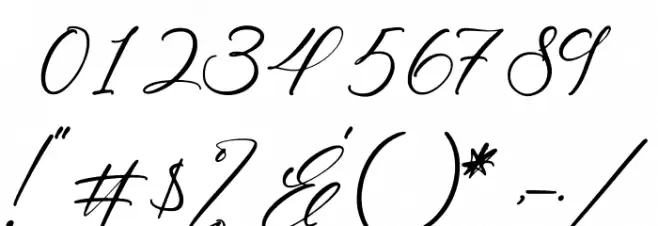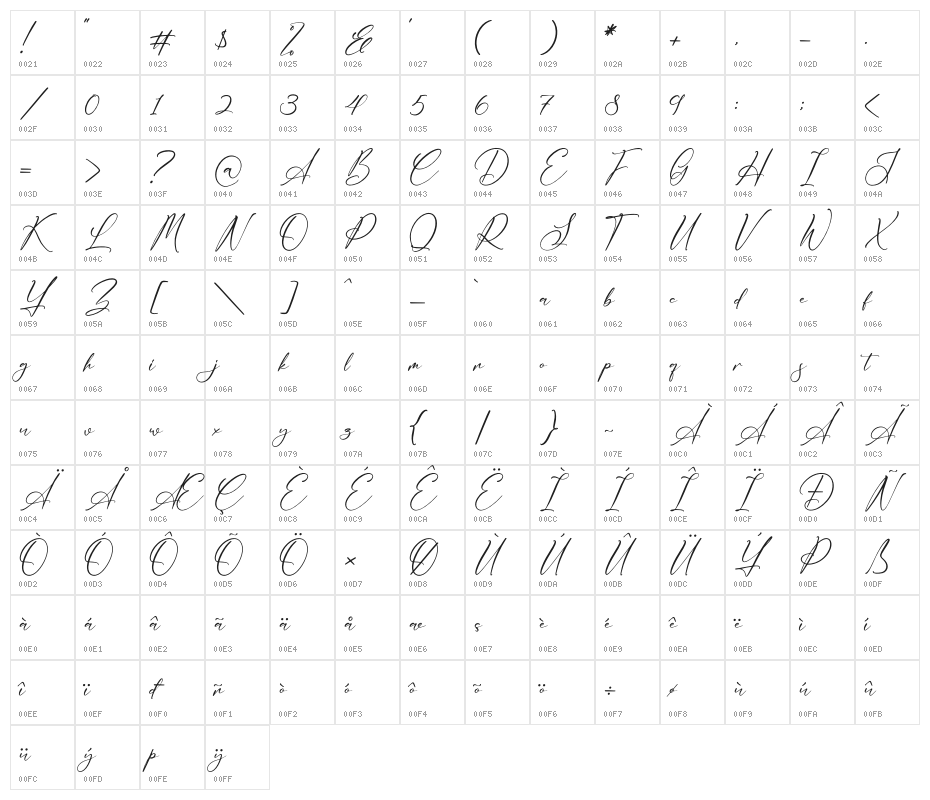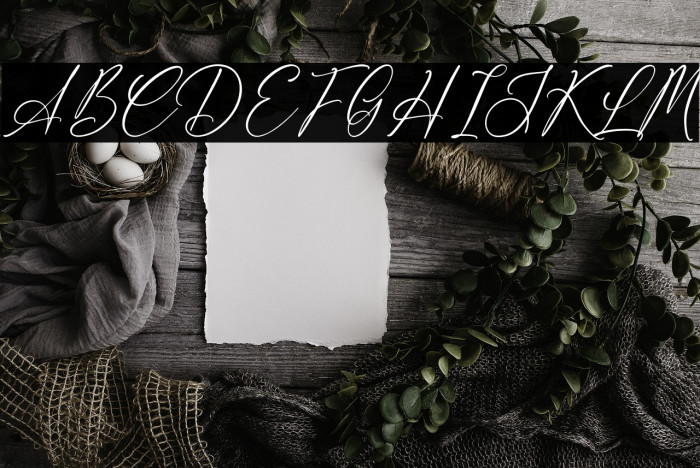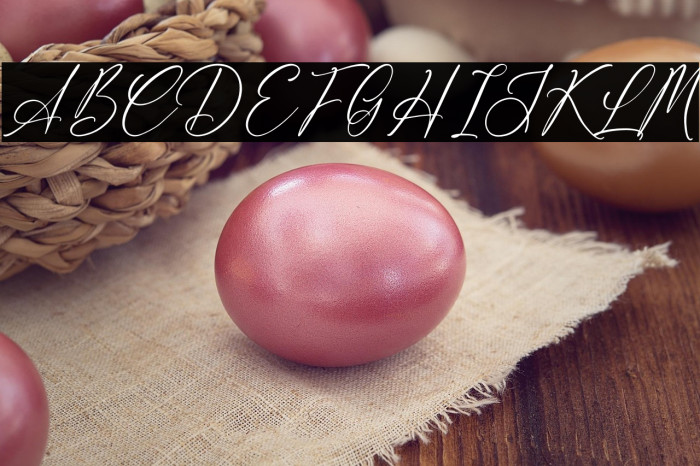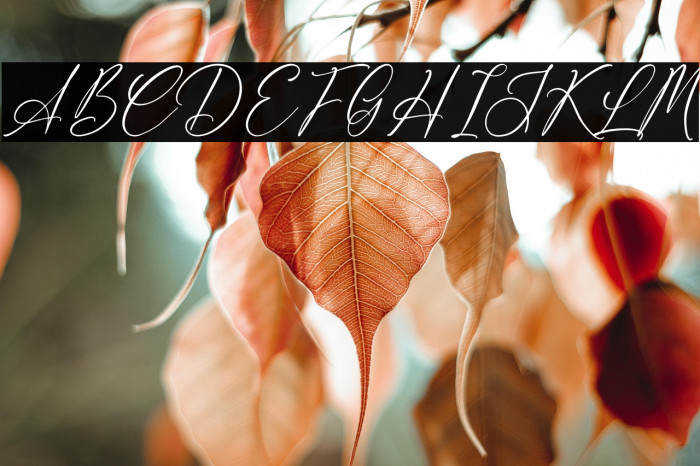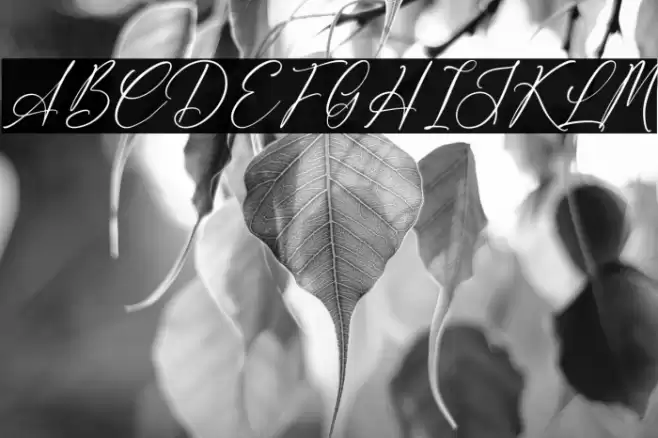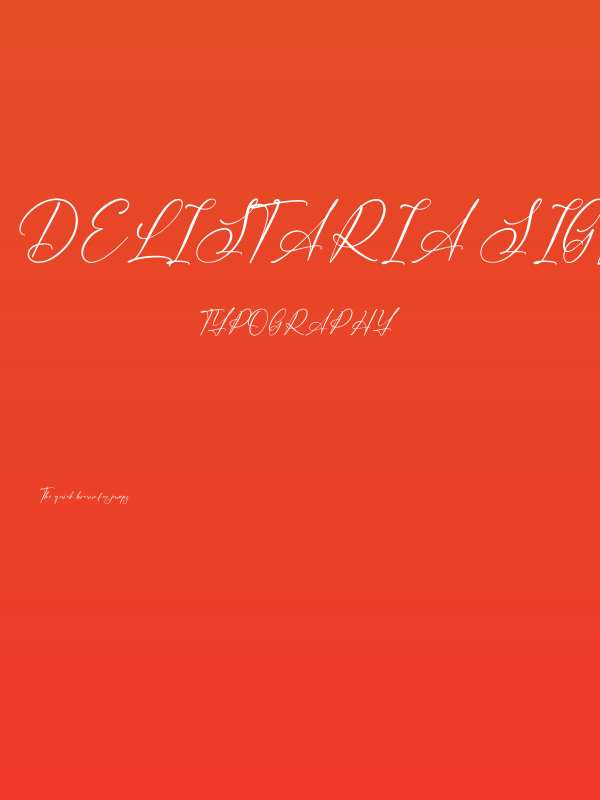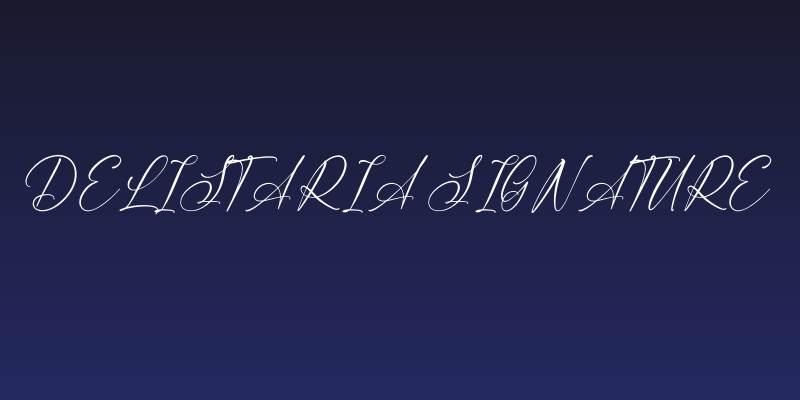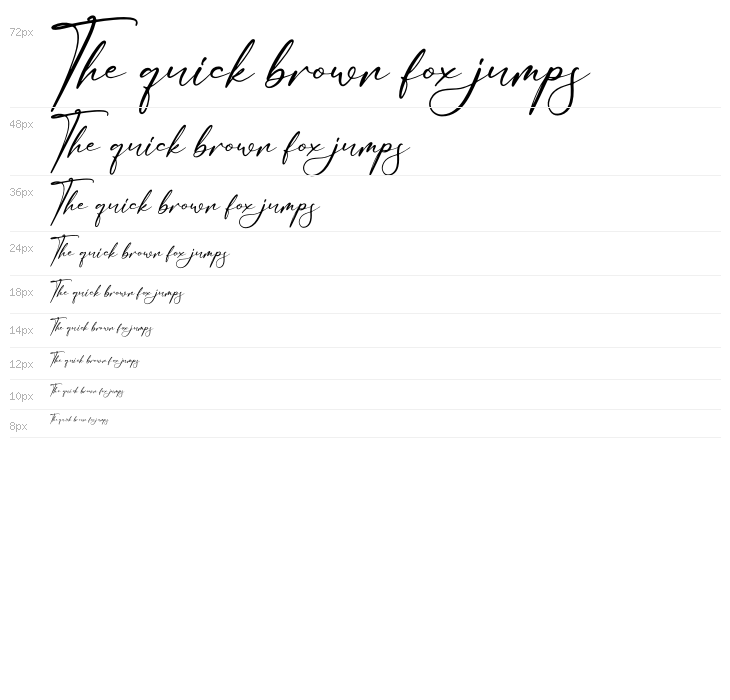
Delistaria Signature Font
Delistaria Signature Description
This elegant script font exudes a sophisticated and flowing style, reminiscent of a personal signature. The characters are gracefully connected, with smooth curves and delicate lines that create a sense of fluidity and movement. The uppercase letters are slightly more elaborate, featuring subtle flourishes that add a touch of flair, while the lowercase letters maintain a consistent and harmonious appearance. The numerals and special characters are designed to complement the overall aesthetic, ensuring a cohesive look across all text. This font is perfect for projects that require a personal and refined touch.
| Proposed Projects | Ideal for wedding invitations, personal branding, elegant logos, and upscale packaging. |